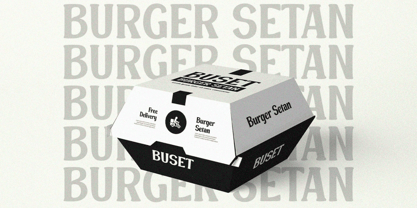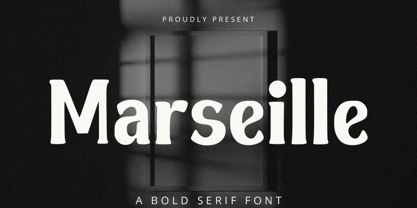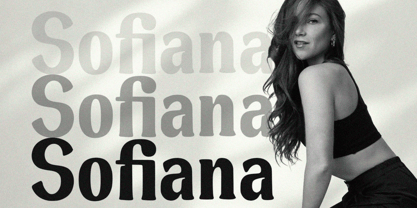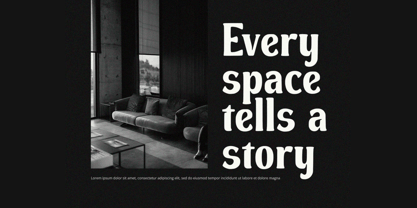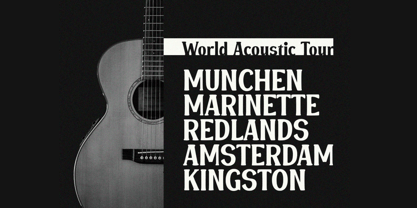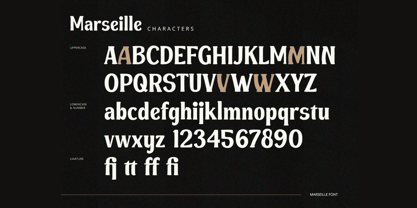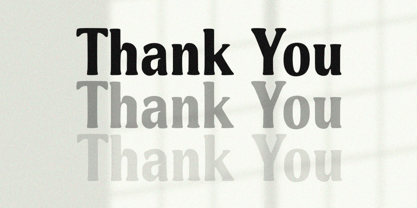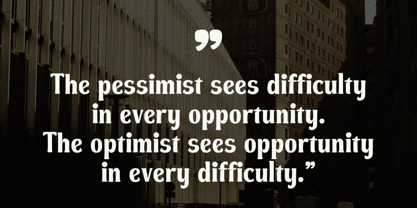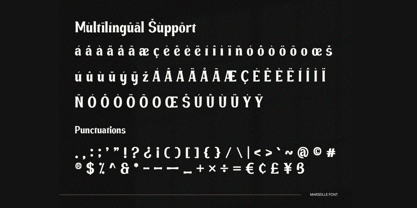
Meuzda
by Hasnat Studio
The Meuzda Font Family was designed by Hasnat Khan and published by Hasnat Studio. Meuzda contains 1 styles. More about this family
Meuzda is a bold serif font that merges timeless elegance with a clean, modern edge. With its powerful letterforms, refined curves, and beautifully designed ligatures, Meuzda brings confidence and class to any design. Perfect for designers looking to make a bold statement while maintaining a touch of sophistication, this font shines in both print and digital projects.
From branding and logos to editorials and packaging, Meuzda provides the visual strength and stylish detailing needed for standout typography.
✿ Key Features:
• Bold Serif Style: Strong, elegant characters with modern flair and refined structure.
• Uppercase & Lowercase Letters: Versatile for both bold headlines and refined body copy.
• Ligatures & Stylistic Alternates: Adds variety and sophistication to your typographic compositions.
• Multilingual Support: Includes accented characters for broad language compatibility.
• OpenType Features: Standard punctuation and numeral set for complete design flexibility.
✿ Perfect For:
• Luxury Branding & Logos: Make an unforgettable impact with bold, classy letterforms.
• Magazine & Editorial Design: Ideal for sophisticated headlines and striking cover titles.
• Fashion & Beauty Packaging: Elevates high-end product designs with timeless style.
• Wedding Invitations & Stationery: Add elegance and structure to formal event materials.
• Web Design & UI Headers: Clean and bold, great for hero sections and landing pages.
Add bold elegance to your next project with Meuzda—a modern serif font designed for impact, beauty, and professional versatility.
Designers: Hasnat Khan
Foundry: Hasnat Studio